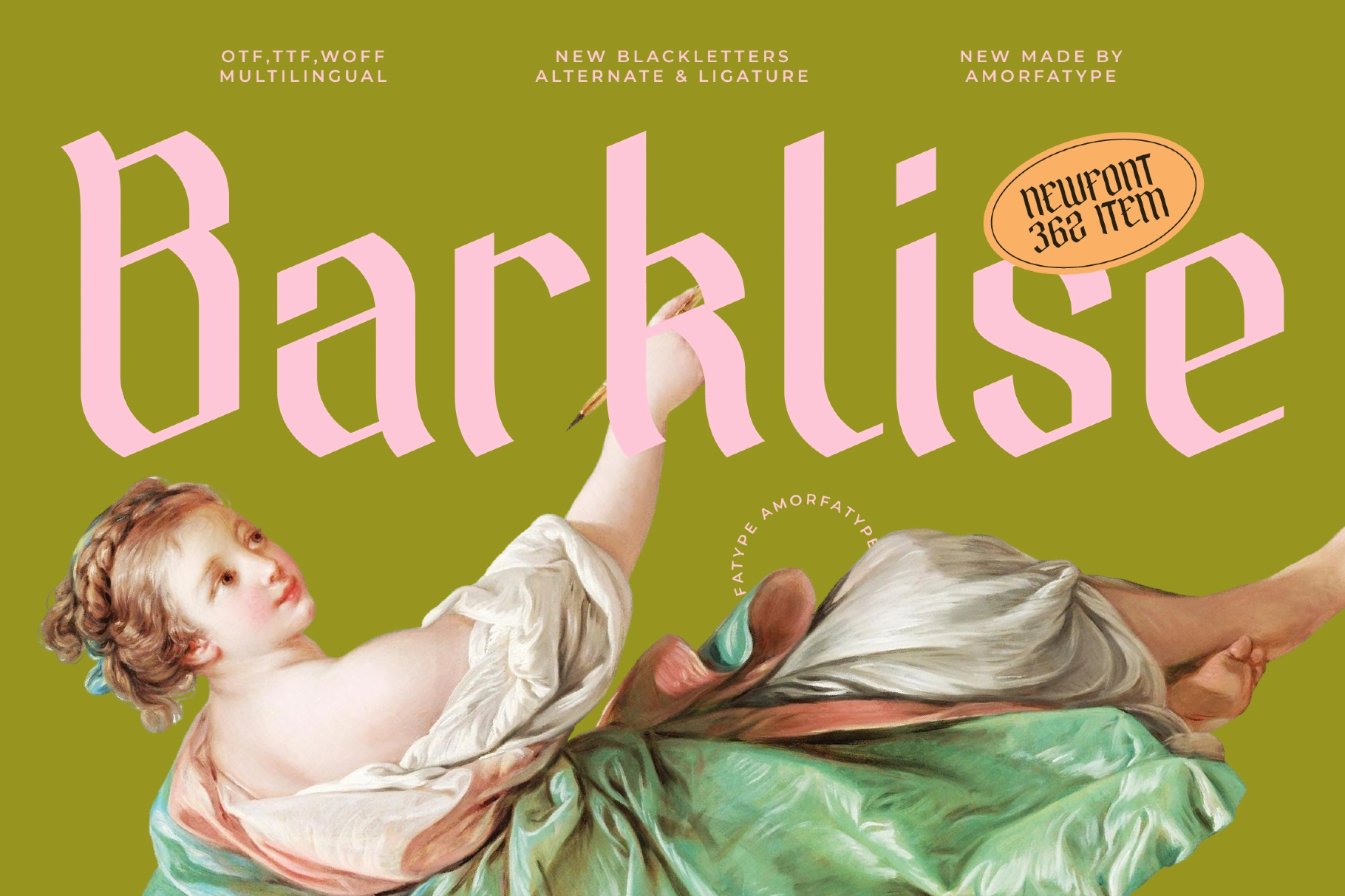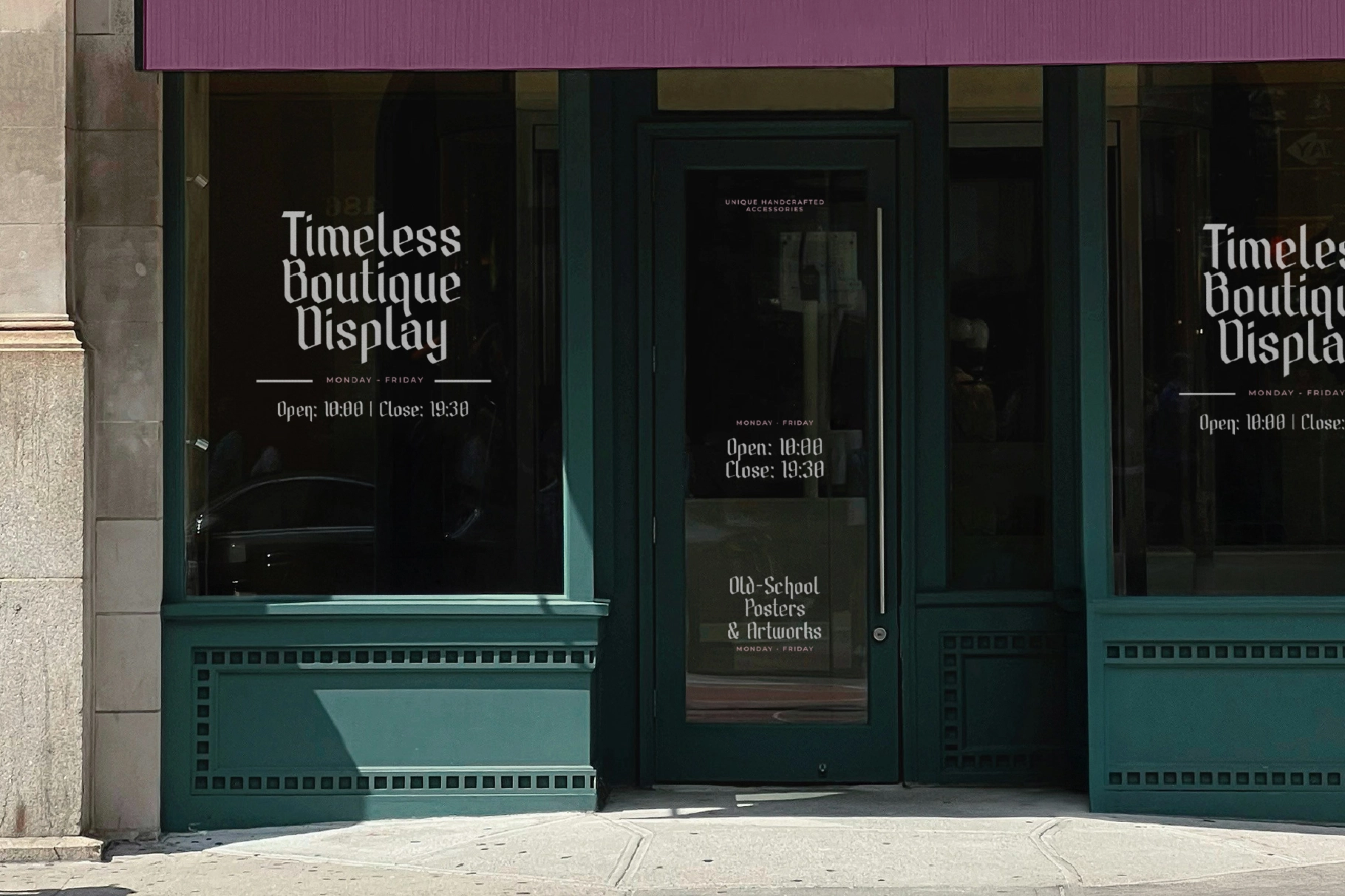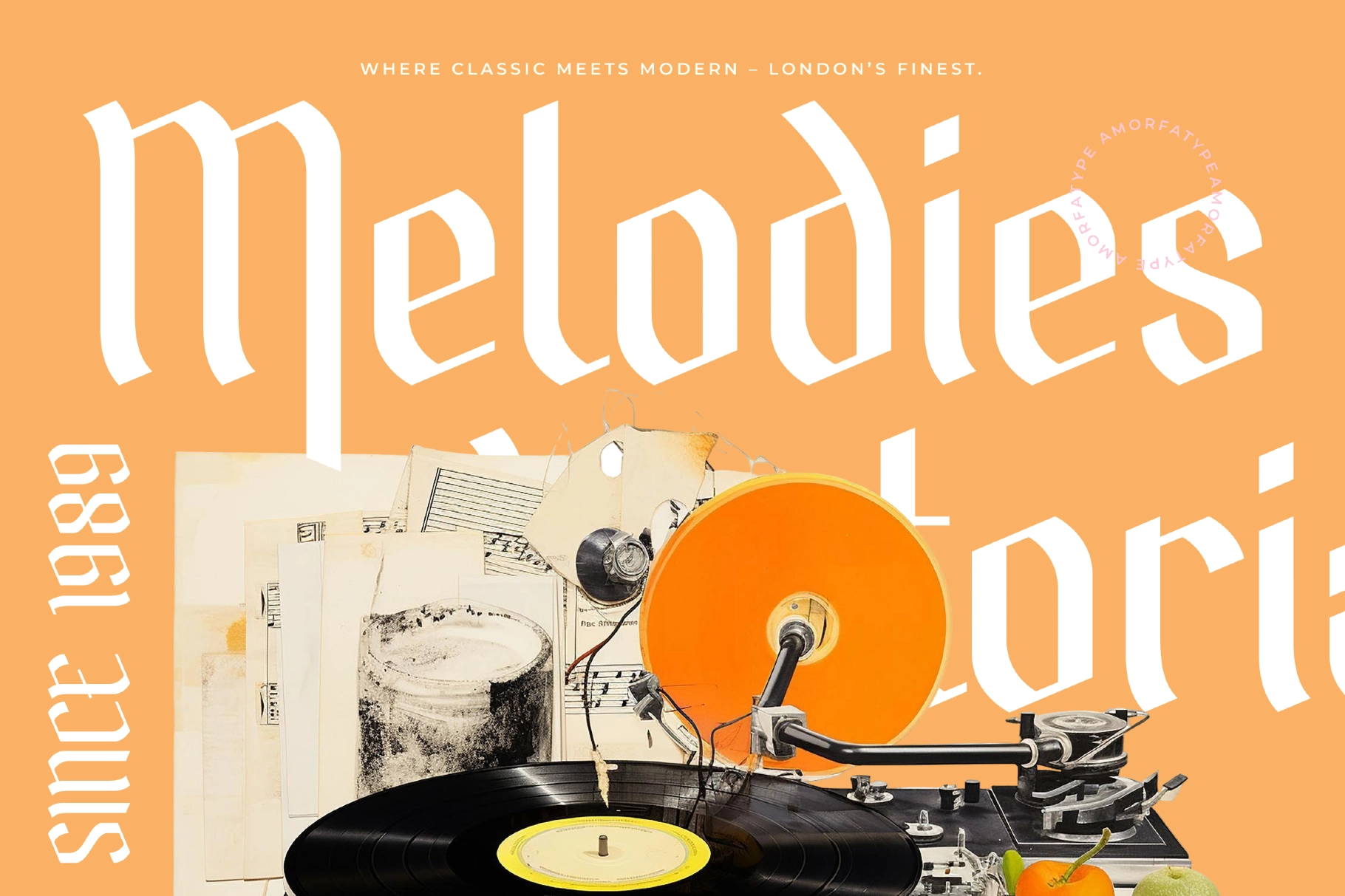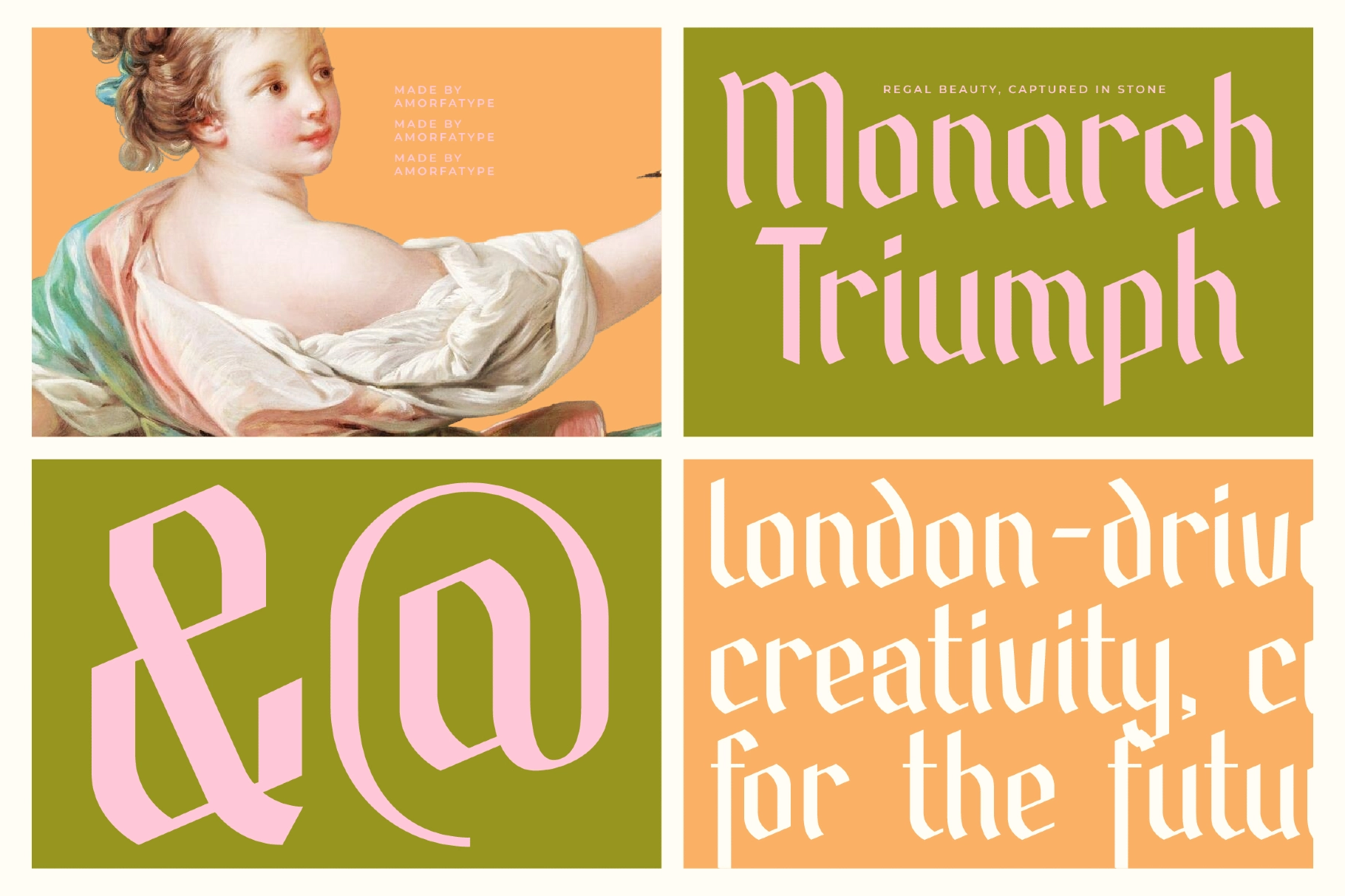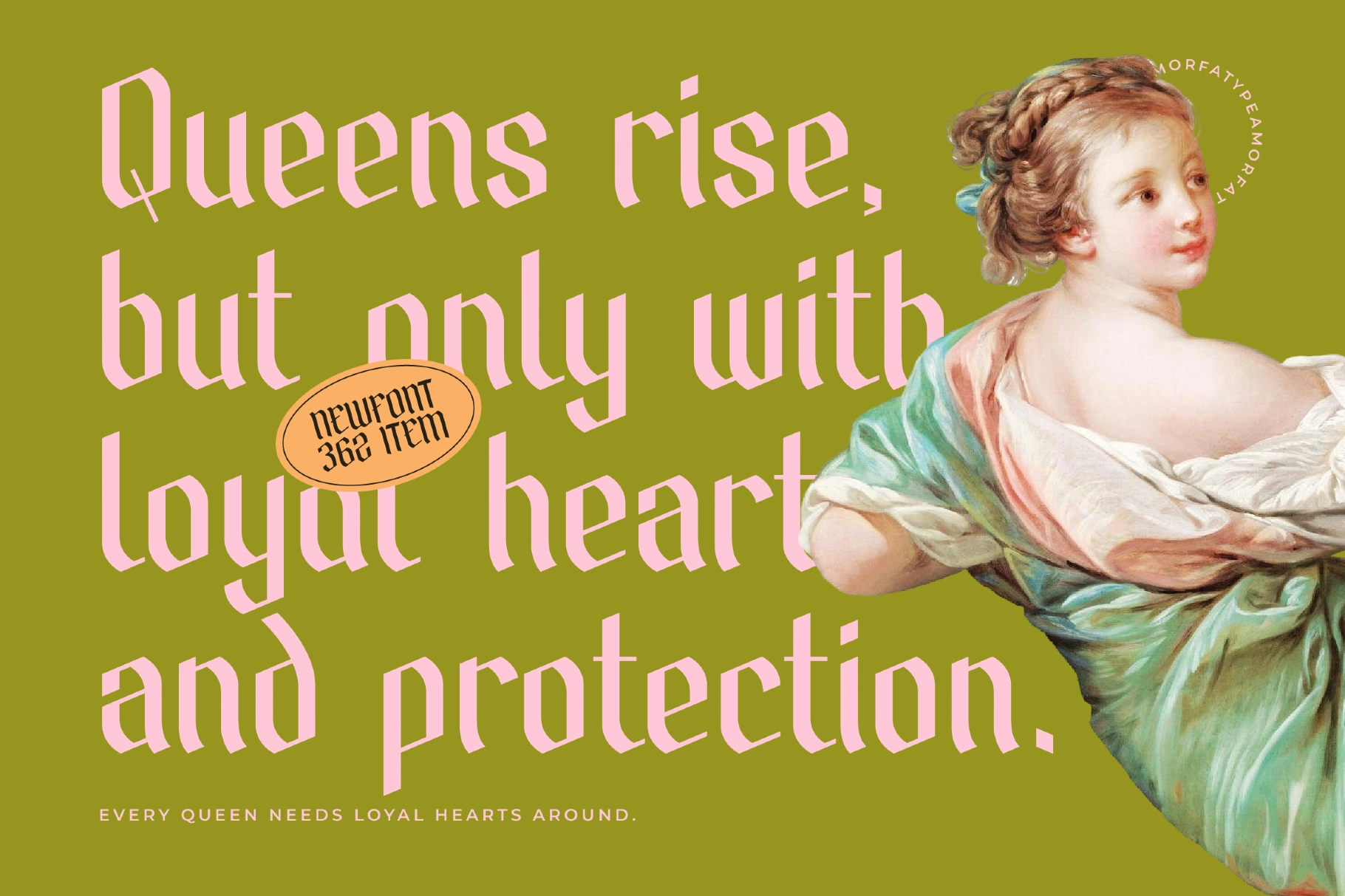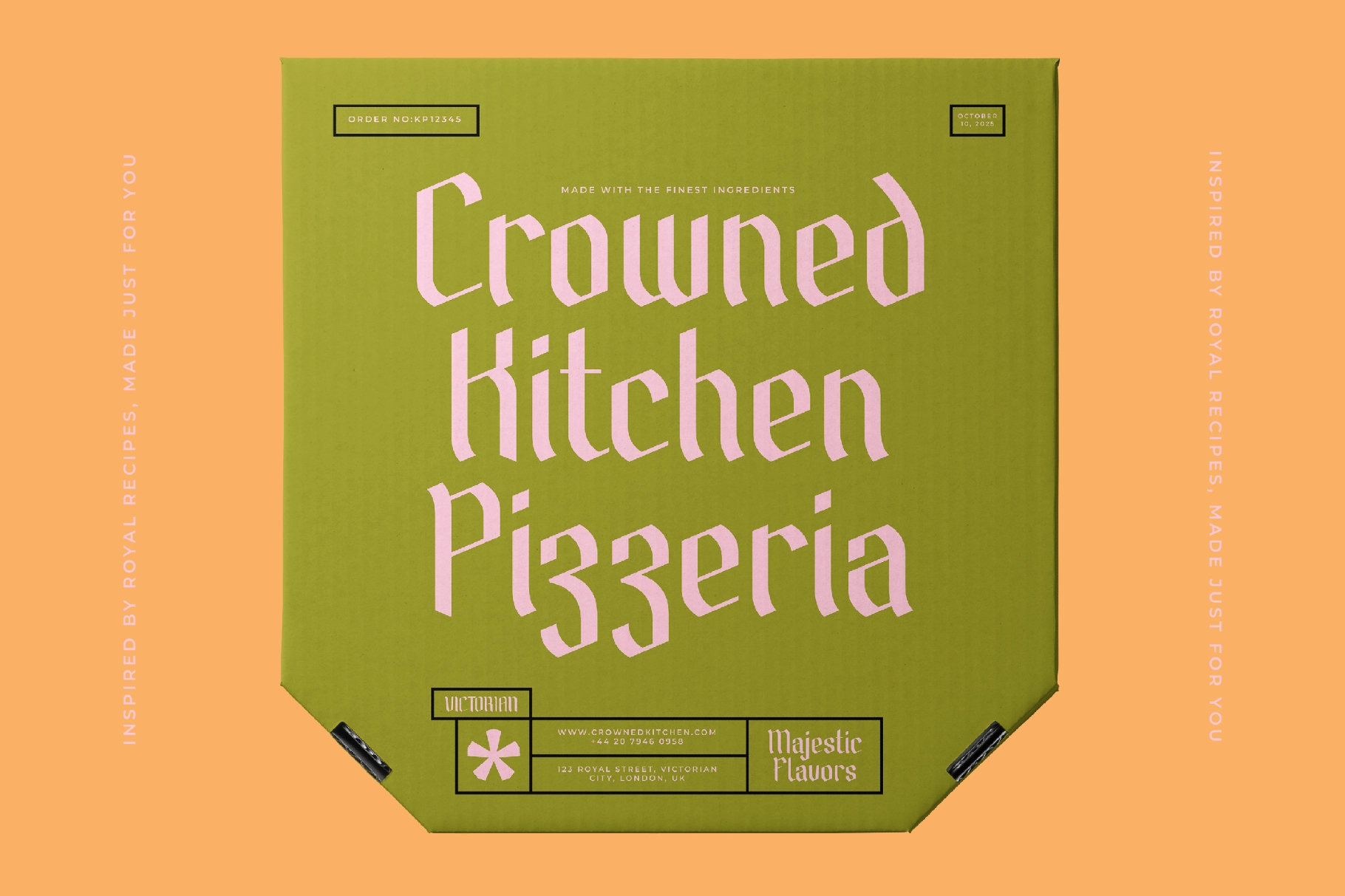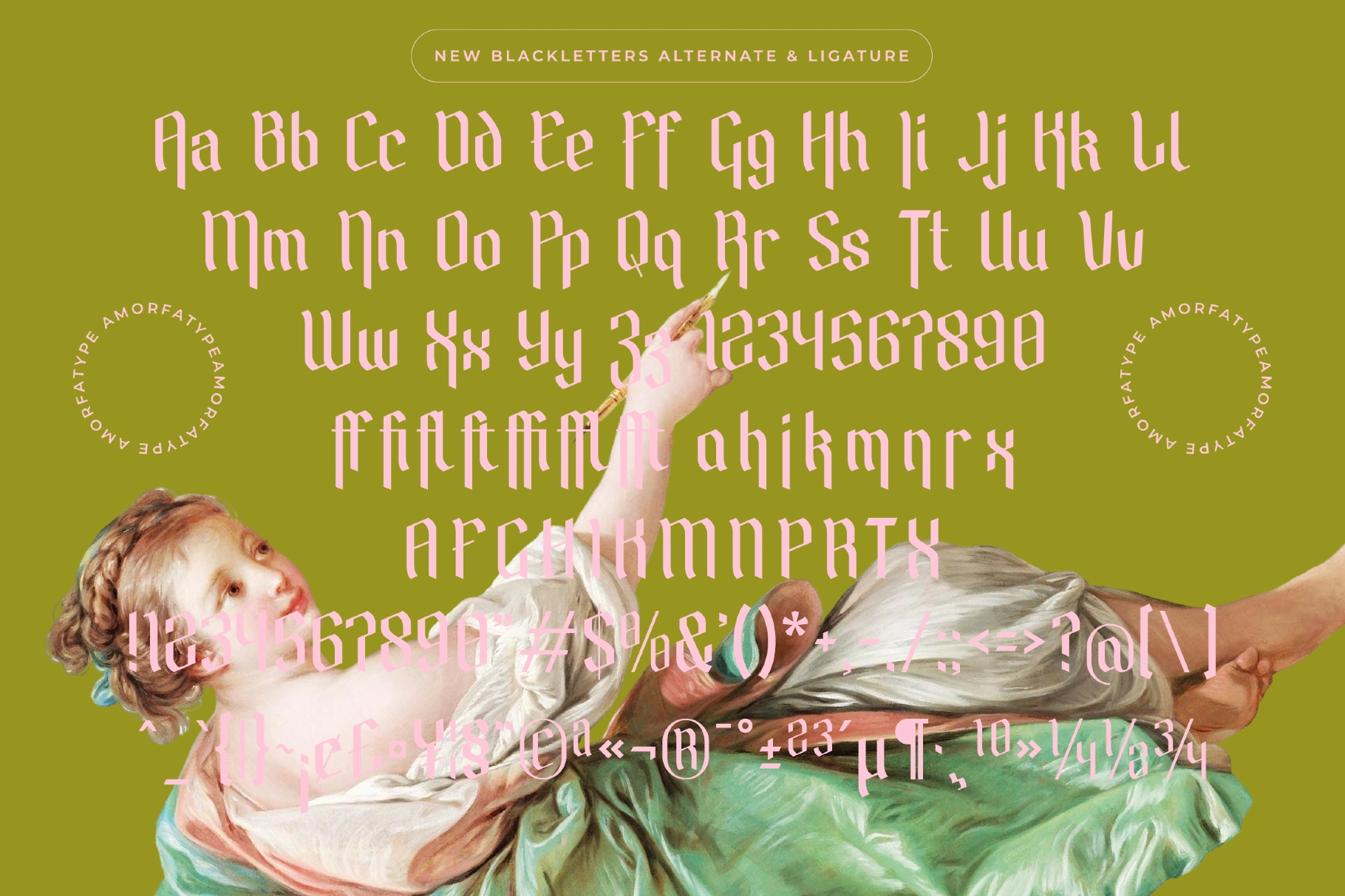
Barklise - Modern Blackletter Font
This blackletter display font brings angular drama, cut-paper sharpness, and a regal gothic rhythm into a cleaner graphic setting. The tall forms, pointed terminals, and slanted cuts give each word a ceremonial bite — fancy, but not the kind that asks permission.
Barklise is a strong pick for album covers, fashion labels, tattoo-inspired graphics, brewery branding, restaurant packaging, editorial headlines, book covers, poster systems, merch prints, product labels, festival identities, social media artwork, and more. Its alternates and ligatures give designers room to shape custom wordmarks, ornate titles, and sharp typographic compositions with a confident historical accent.
• Ligatures & stylistic alternates
• Uppercase & lowercase